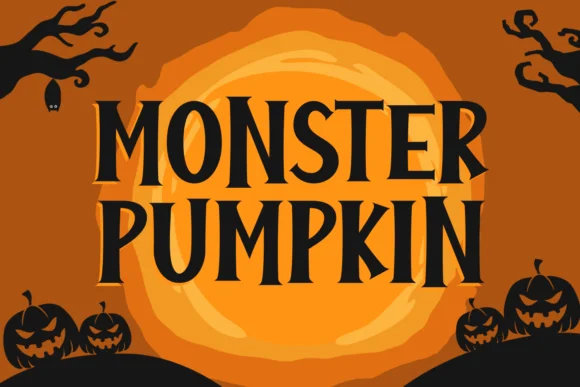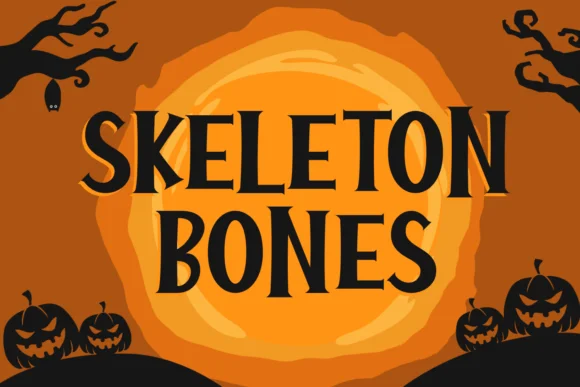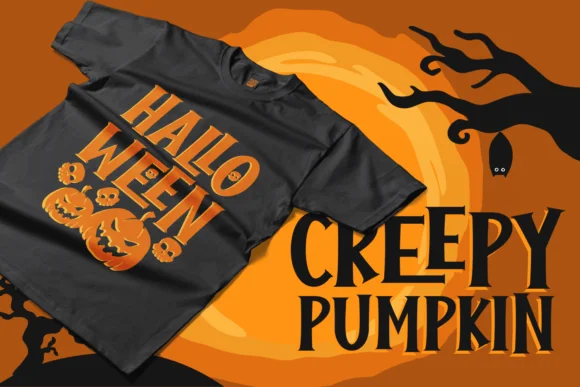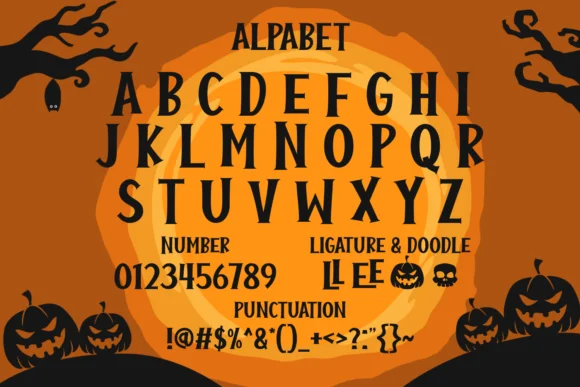
Halloween Contest Font
This competitive font is perfect for Halloween costume contests, spooky competition announcements, pumpkin carving contests, Halloween decoration competitions, trick-or-treat challenges, horror trivia events, Halloween talent shows, scary story competitions, monster makeup contests, and thrilling Halloween competition messaging materials.
Halloween Contest Font is exciting because it captures the electrifying energy and competitive spirit of Halloween competitions through its dynamically crafted letterforms that embody the thrilling excitement of contests where creativity meets supernatural themes in spectacular displays of Halloween talent. The font features bold, attention-grabbing characters with competitive proportions and contest-inspired details that evoke the spine-tingling anticipation of Halloween competitions where participants push creative boundaries to achieve spooky supremacy, incorporating trophy-like flourishes and winner elements that create typography as exciting and motivating as the moment when Halloween contest winners are announced to cheering crowds. Each letter showcases the enthusiastic energy and competitive drive that makes Halloween contests such beloved community events, with dynamic curves and victory accents that transform ordinary text into rally cries for Halloween excellence that inspire participants to unleash their most creative and frighteningly fantastic Halloween talents.
The Halloween Contest Font family includes competitive style variations: Regular, Bold, Light, Victory, and Champion versions. The collection features special contest elements including trophy accents, winner flourishes, competitive details, and champion ornaments. Additional components include contest borders, competition frames, victory decorations, and triumphant ornamental designs that enhance the font's Halloween contest appeal and create cohesive competitive Halloween themes.
Contest organizers and competitive Halloween enthusiasts will find Halloween Contest Font to be an invaluable resource for creating energizing Halloween communications that capture the thrilling excitement and competitive spirit of Halloween contests that bring communities together in celebration of creativity and spooky talent. This competitively crafted font transforms ordinary Halloween messaging into contest expressions that motivate participants and audiences to embrace the competitive fun that makes Halloween contests such exciting and memorable community celebrations.
The typeface includes comprehensive character support with competitive styling that maintains excellent readability while conveying the energetic excitement and victory atmosphere of Halloween contest celebrations. The font's dynamic design ensures triumphantly exciting results across both amateur competition applications and professional Halloween contest productions.
Perfect for contest organizers, competitive events, Halloween challenges, and victory-focused seasonal marketing, this font delivers dynamically exciting visual impact that communicates competitive spirit, creative excellence, and the thrilling energy that makes Halloween contests such spectacular celebrations of community creativity and supernatural competitive fun.